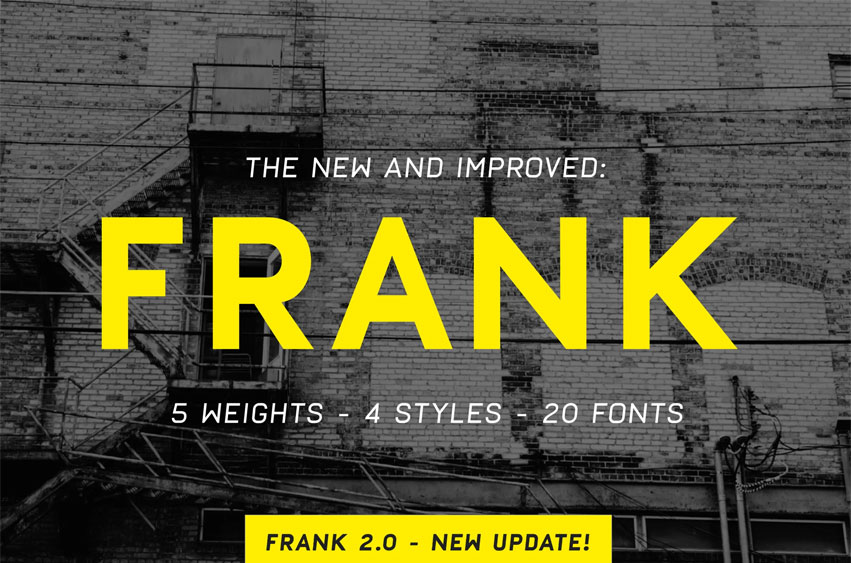
Frank Font Proudly presenting this typeface inspired by the classics DIN, Eurostile and a dash of Futura. Perfect for prints, t-shirts, posters and such.
• 5 weights!
• Normal style, Oblique style and Rough style!
• Latin support, 300+ glyphs